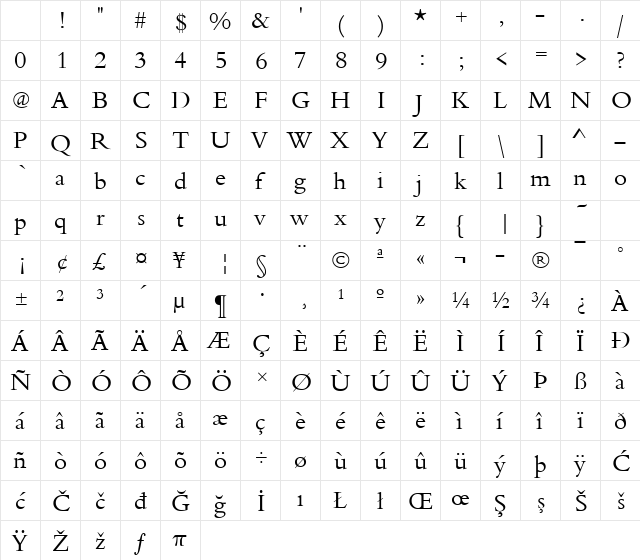
Complete URWBeruiniT Regular glyph index. Displaying only characters natively supported by URWBeruiniT Regular font.
URWBeruiniT is a composed and adaptable typeface that performs quietly and consistently across a wide range of design contexts.